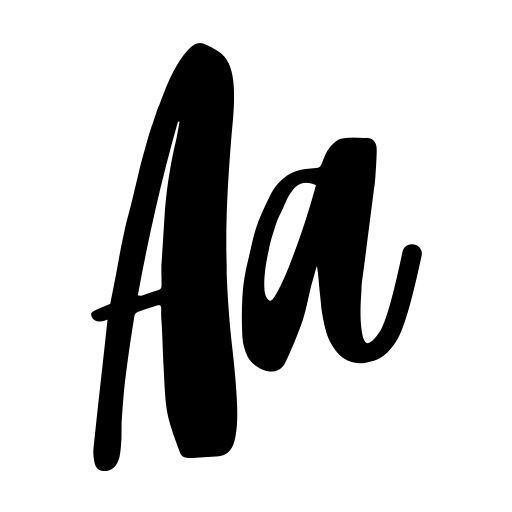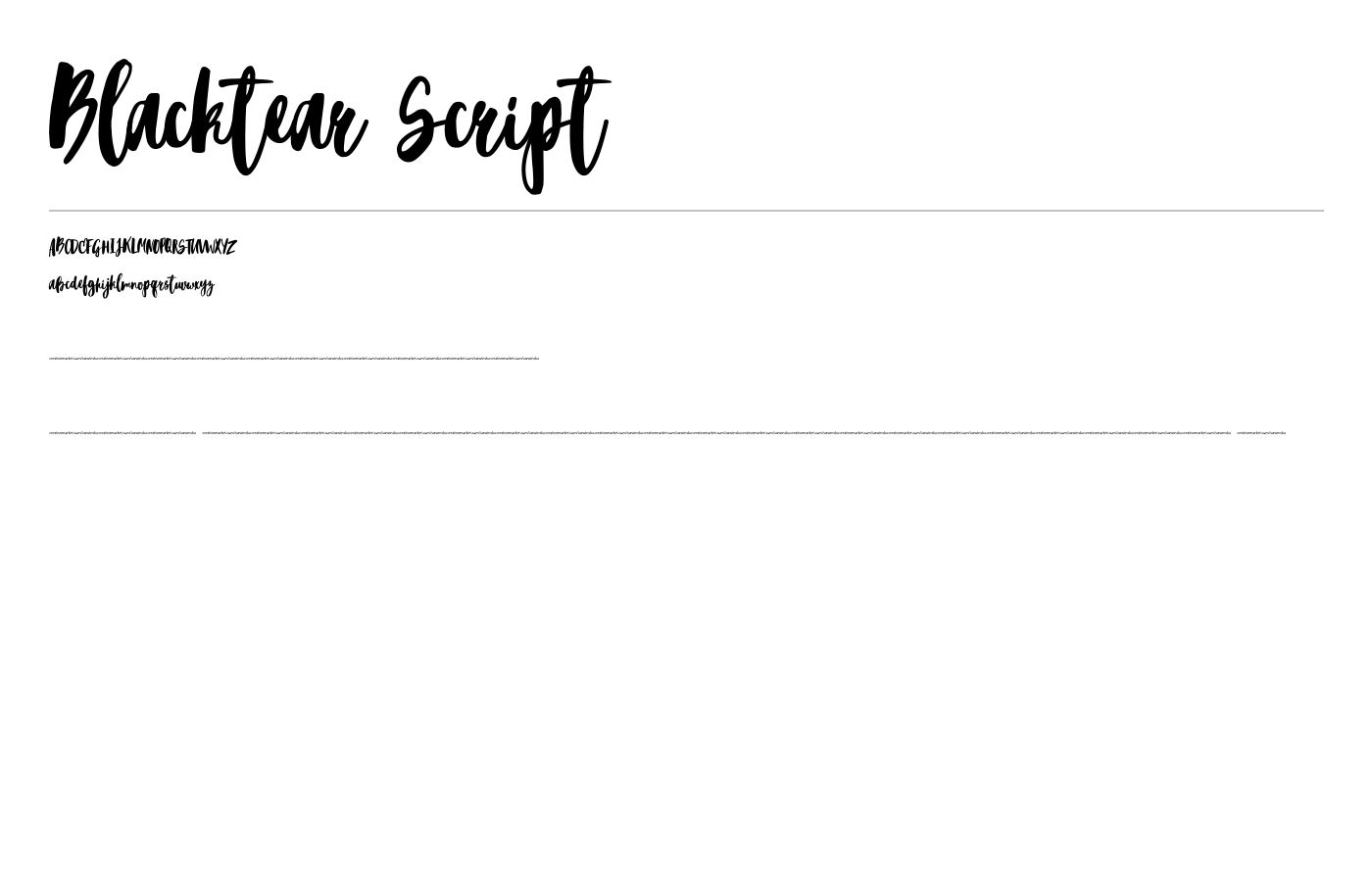
Blacktear Script is a bold, expressive script font with thick, brush-like strokes that convey a lively and artistic feel. Its dynamic letterforms and high contrast between thick and thin lines make it perfect for creative branding, logos, and headlines where a hand-crafted, energetic style is desired. This font shines in projects seeking a modern, stylish, and approachable look with a personal touch.
Blacktear Script Font
About Blacktear Script Font
| Font family | Blacktear Script Font |
| Designer | Katsia Jazwinska |